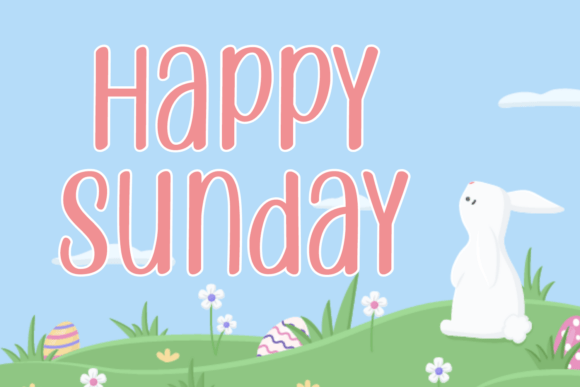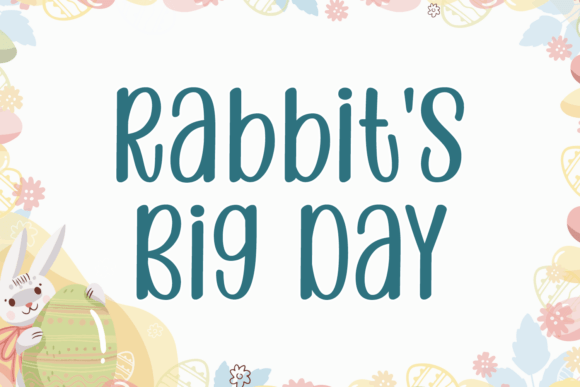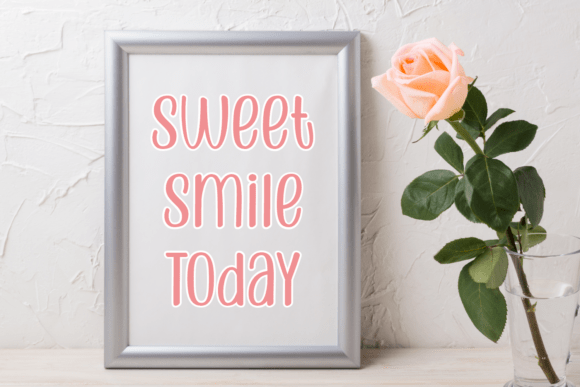
Male Rabbit Font
The Male Rabbit font is a cute and charming font, with a girly and feminine handwritten calligraphy style. This font is suitable for various designs, from social media posts, children’s book illustrations, wedding invitations, to brand logos. Adorned with decorative elements such as flowers and hearts, as well as pastel colors that add a vintage and retro feel, this font can be used for various occasions such as Easter and its uniqueness lies in its ability to switch from casual to elegant, making it a versatile choice with a charming modern touch.